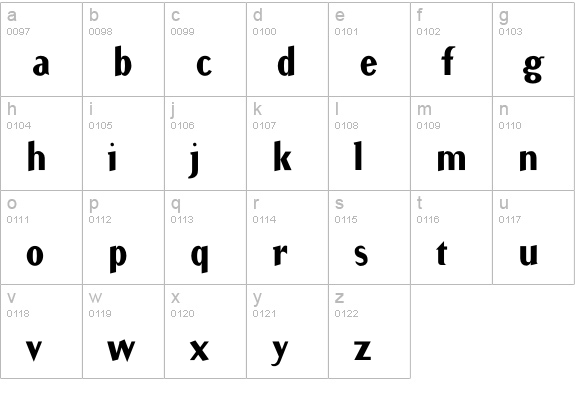
IndustrySansBold Font Details
IndustrySansBold is a dynamic and versatile font that exudes confidence and modernity. With its strong and bold letterforms, this typeface is perfect for creating impactful headlines, attention-grabbing logos, and eye-catching designs. Its clean and geometric design makes it highly legible even at small sizes, ensuring that your message is always clear and easily readable. What sets IndustrySansBold apart is that it is not only visually striking, but also freely available to download at FontsMarket.com. This means that you can enhance your creative projects with this exceptional font without any cost or restrictions. Whether you're a professional designer, an aspiring artist, or simply someone who appreciates beautiful typography, IndustrySansBold offers you the opportunity to elevate your work to new heights. The versatility of IndustrySansBold knows no bounds. It seamlessly blends into a wide range of design styles, from sleek and minimalistic to bold and expressive. Its well-defined letterforms and carefully balanced proportions ensure that it remains legible and impactful across various mediums, be it print or digital. With IndustrySansBold, you have the freedom to explore your creativity without any limitations. Its extensive character set includes uppercase and lowercase letters, numerals, punctuation marks, and special characters, providing you with all the tools you need to bring your ideas to life. Whether you're designing a captivating advertisement, crafting a memorable branding identity, or simply want to add a touch of elegance to your personal projects, IndustrySansBold is the go-to font that will never disappoint. So don't miss out on this incredible opportunity to elevate your designs with a high-quality, freely available font. Head over to FontsMarket.com and download IndustrySansBold today!